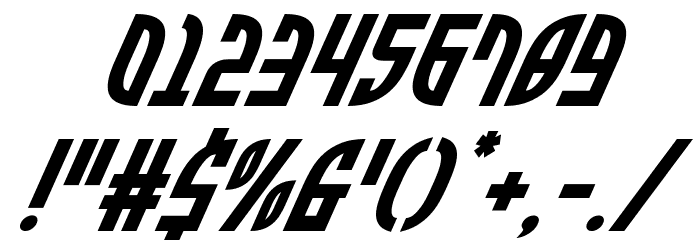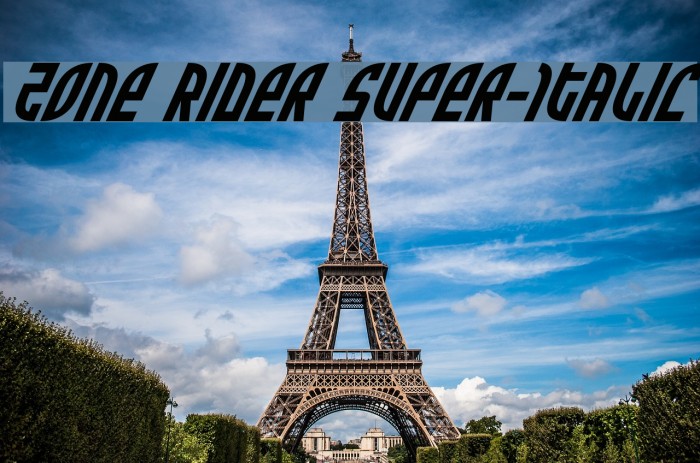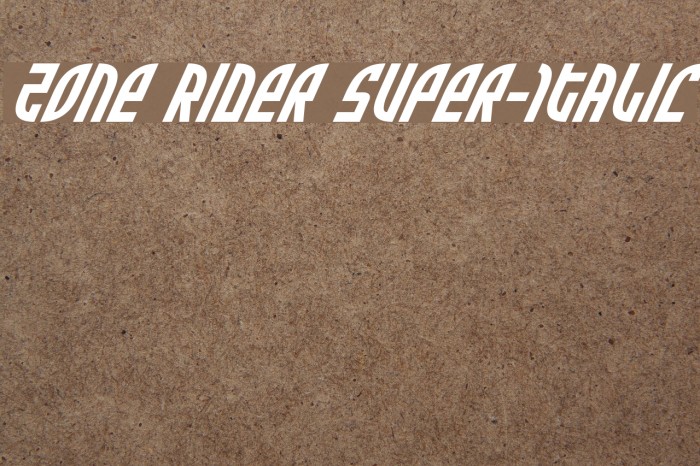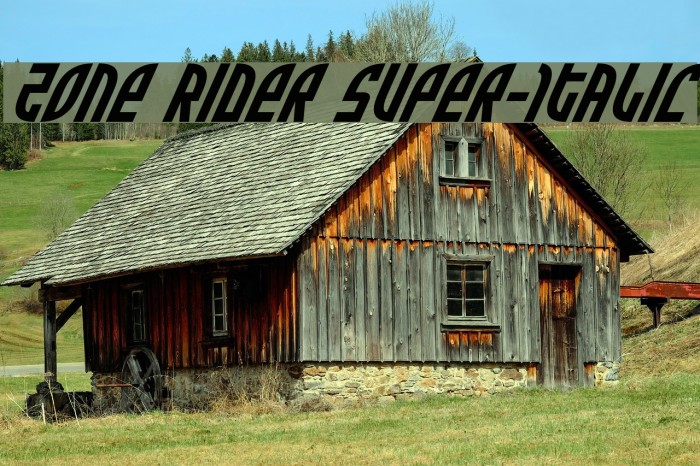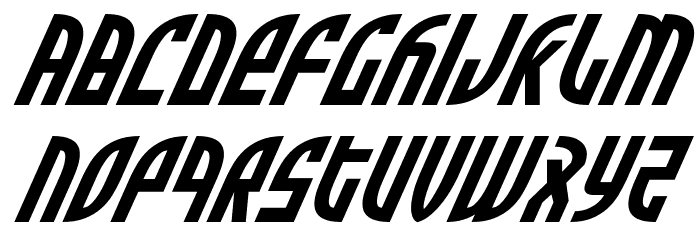
Zone Rider Super-Italic Font
Zone Rider Super-Italic Description
This font features a bold, italicized style with a strong, dynamic slant that gives it a sense of motion and energy. The characters are wide and angular, with sharp edges and a futuristic appearance. The uppercase letters are particularly striking, with a consistent height and width that create a uniform look. The lowercase letters maintain the same boldness and angularity, ensuring readability while adding a unique flair. The numbers and special characters are designed to match the overall aesthetic, making them suitable for a variety of uses. The font's design is both modern and assertive, making it ideal for projects that require a strong visual impact.
A bold, italicized font with a dynamic, angular design and a futuristic feel from Sci-fi fonts.
- Proposed Projects: Ideal for branding, sports team logos, video game titles, and dynamic poster designs.
- Width: Expanded